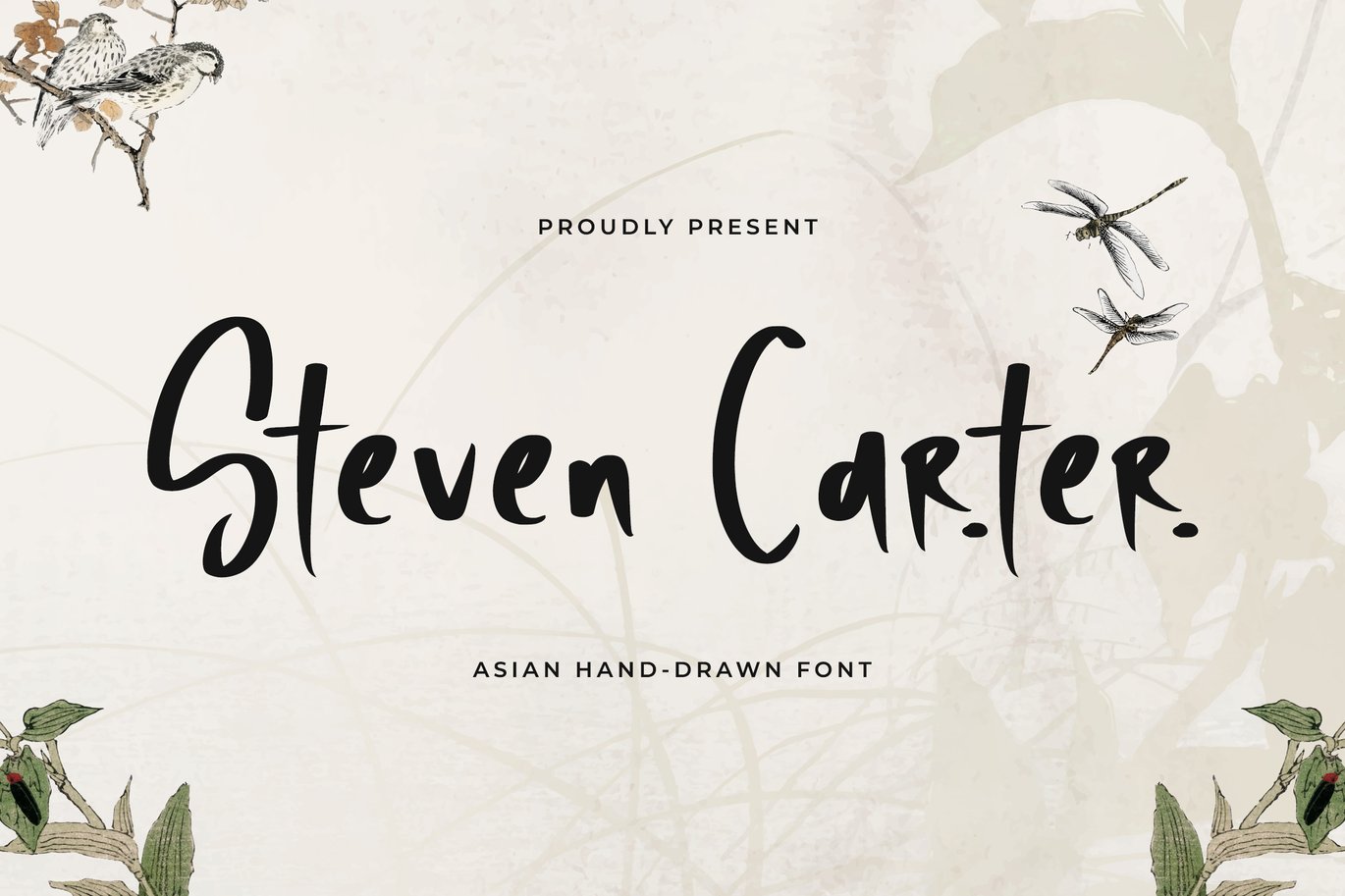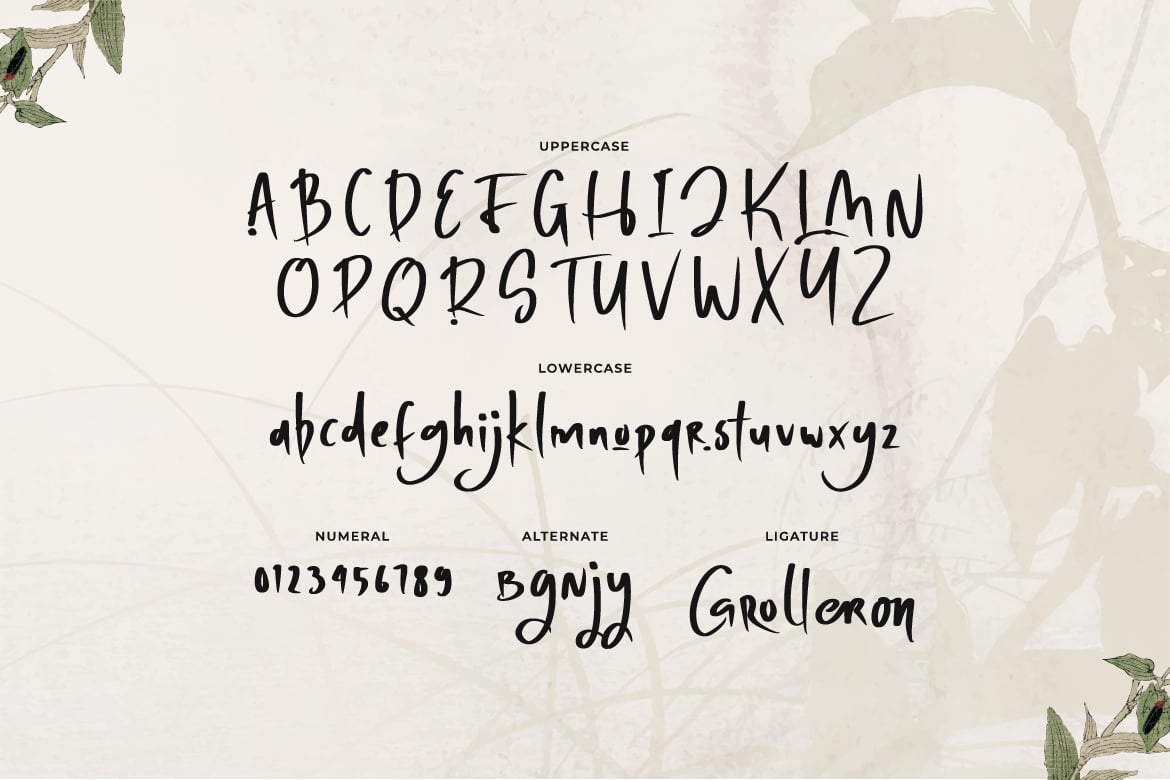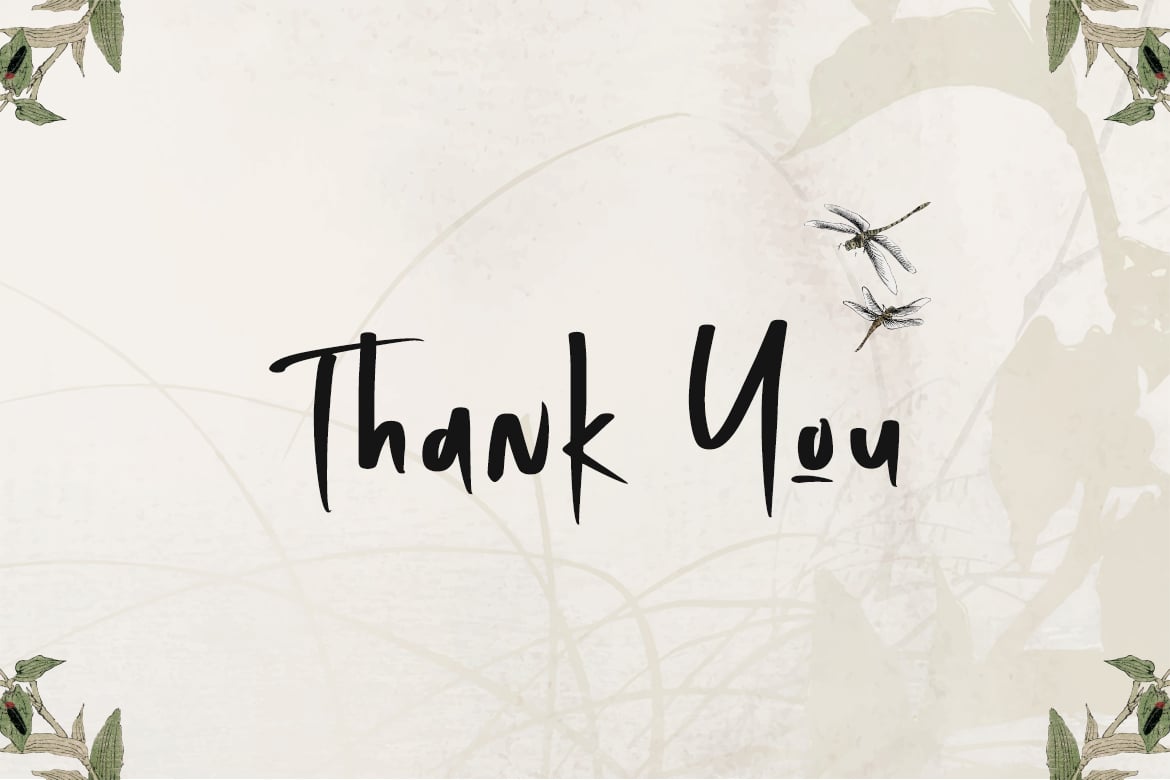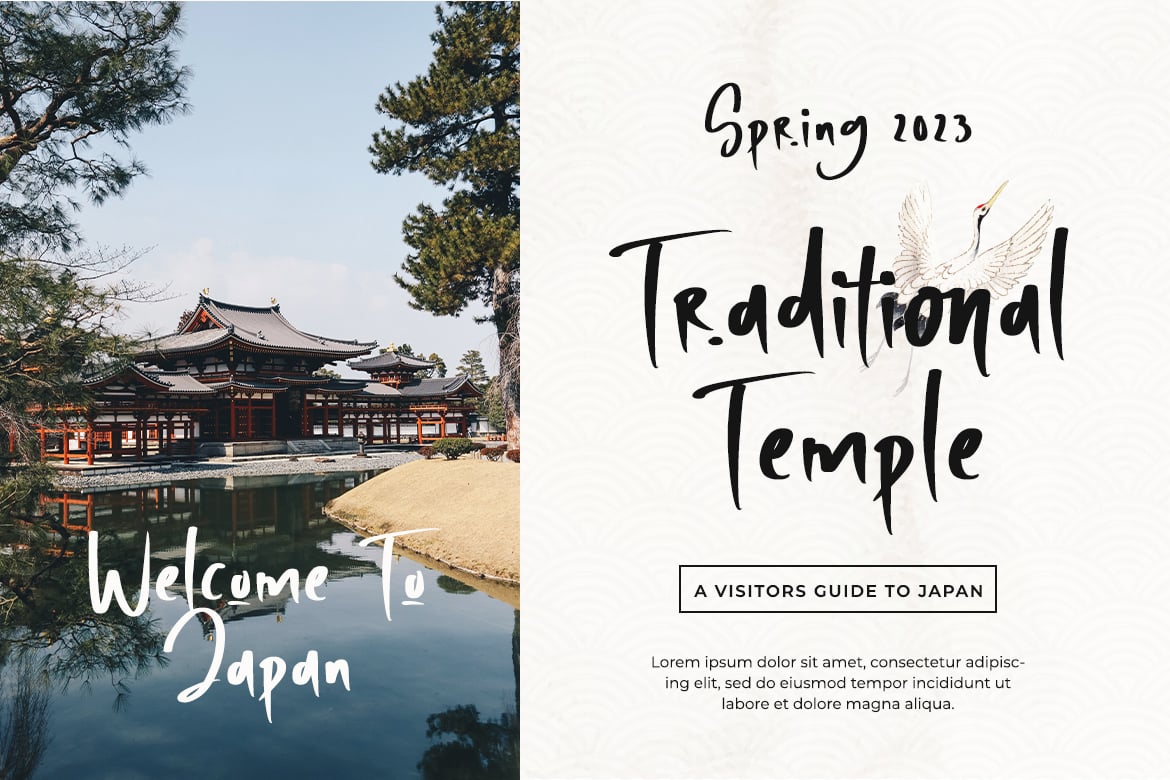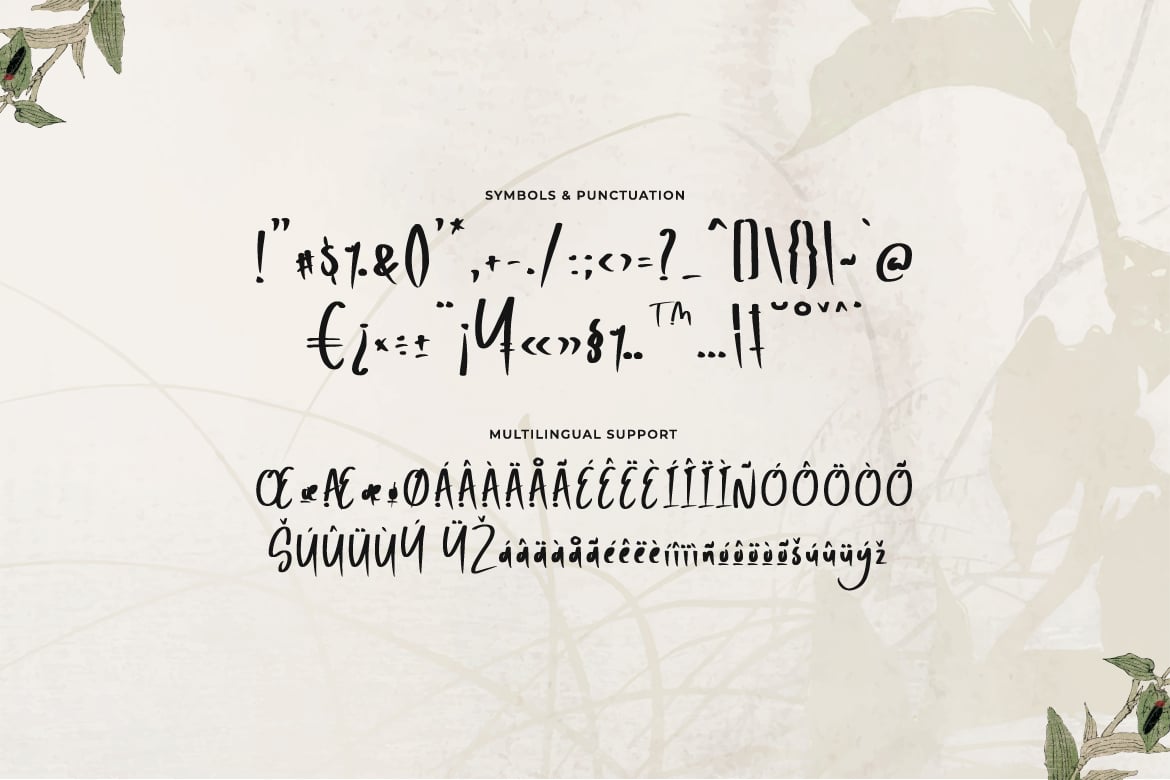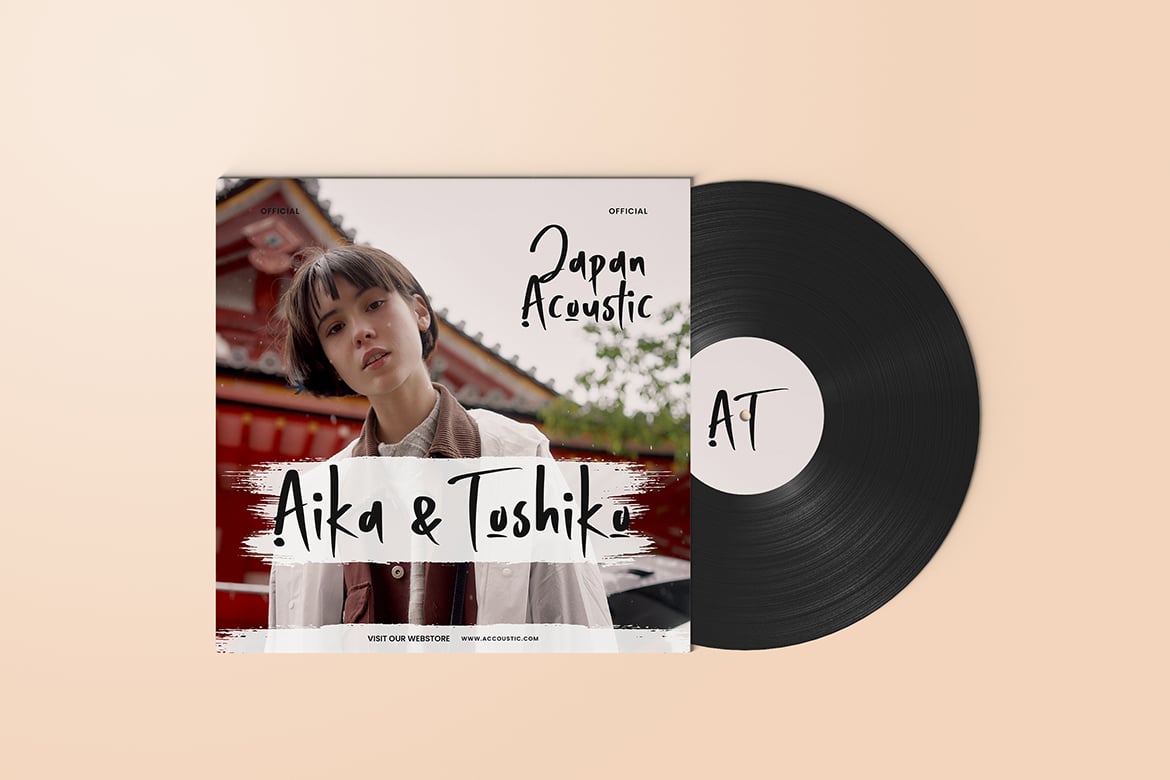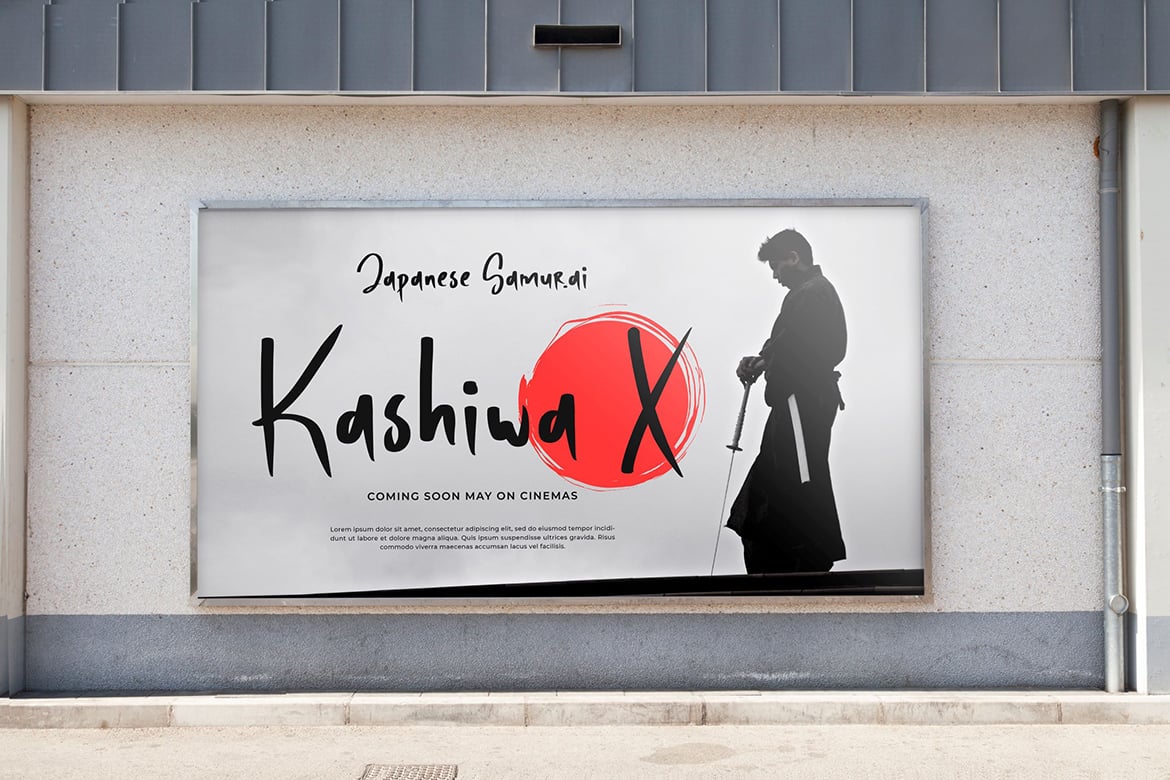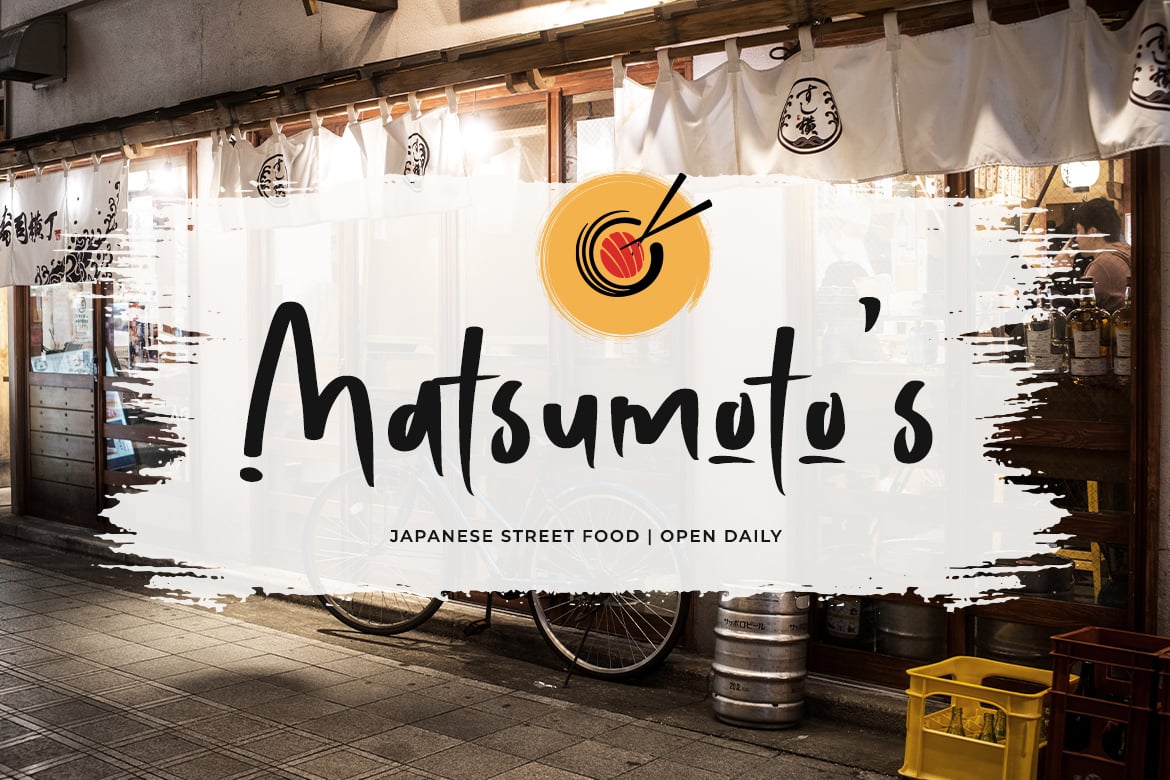
Steven Carter – Asian Hand Drawn Font
Steven Carter is an simple asian font font.
It has a great readability and will add a striking touch to any design!
It will look awesome on any food menu, print, or restaurant brand!